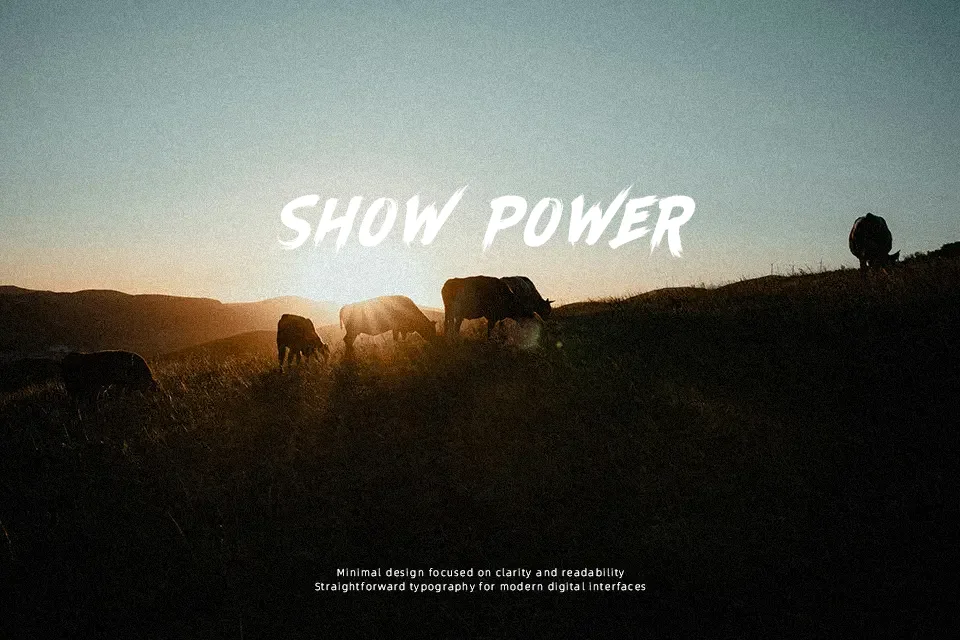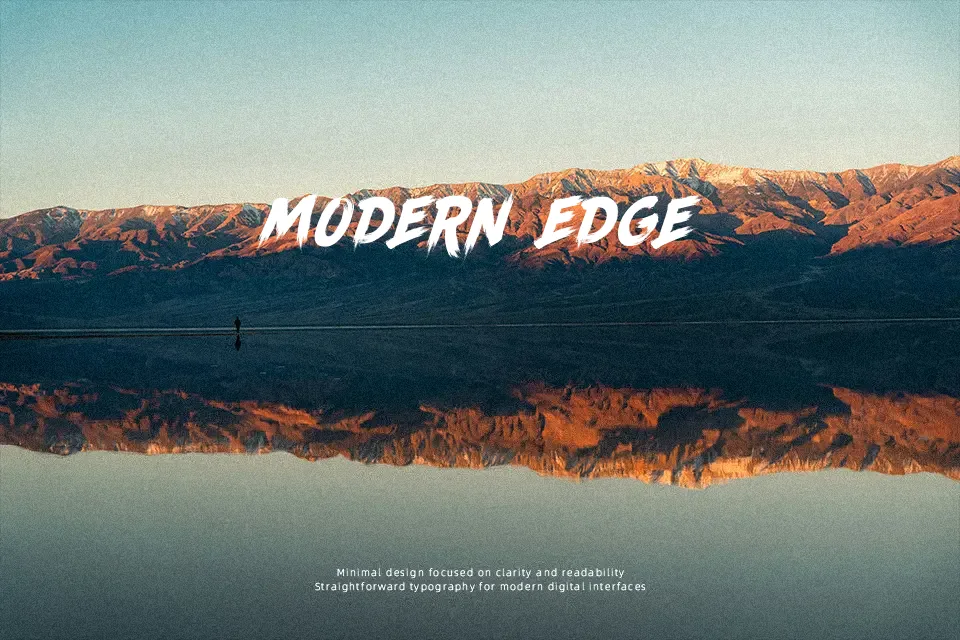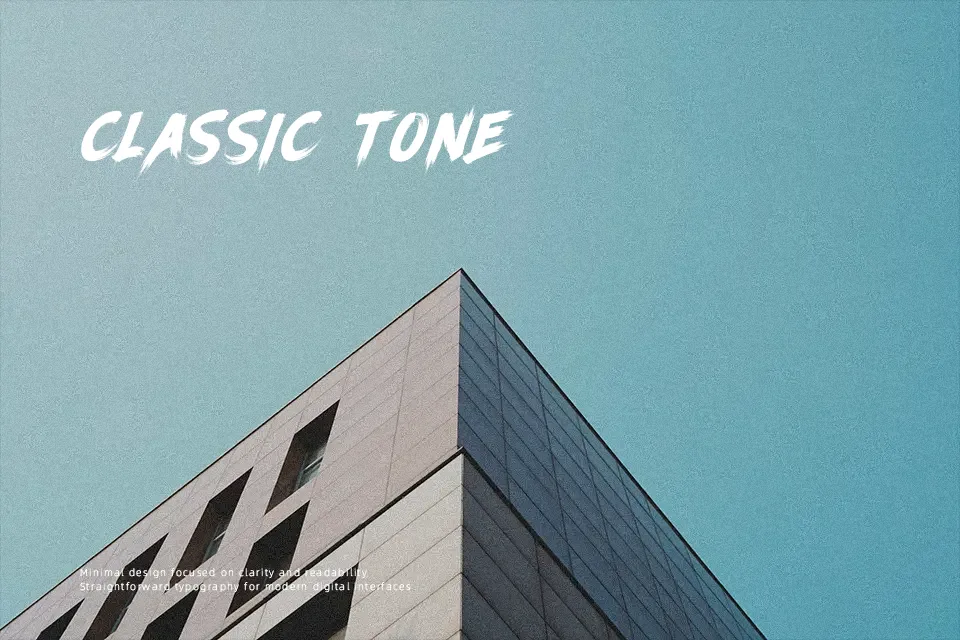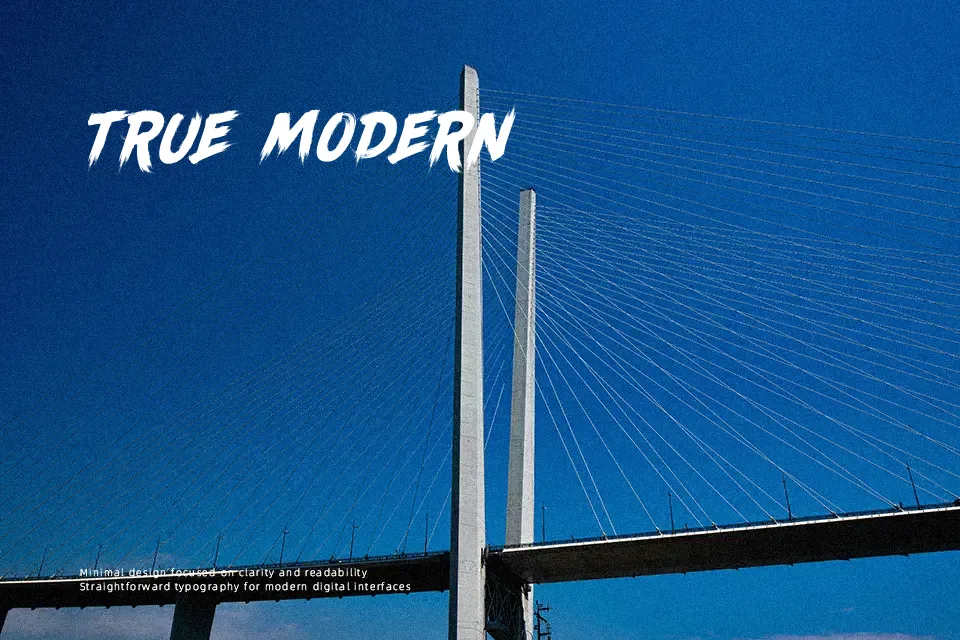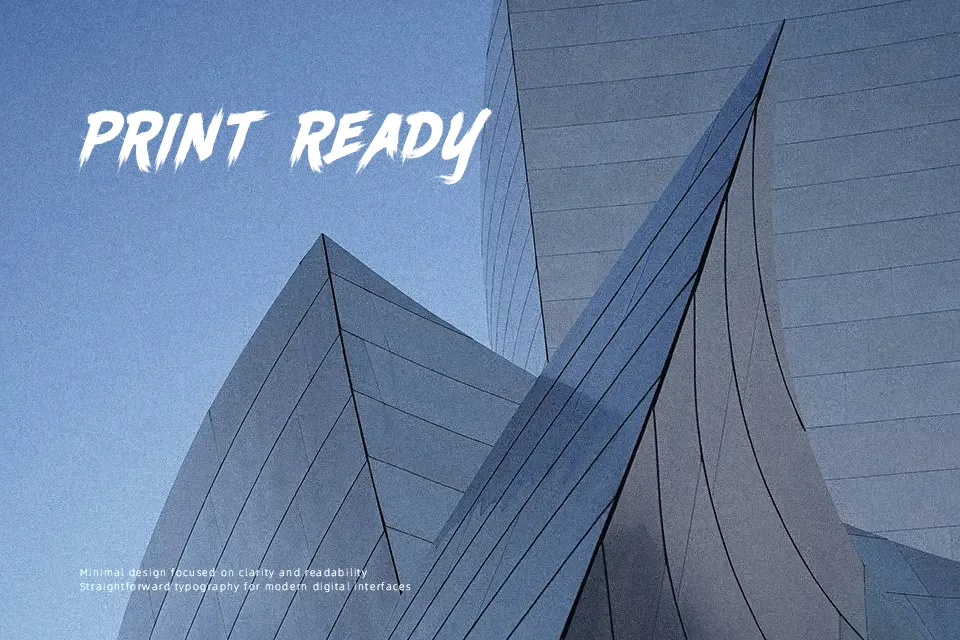
Ancherr Font
Designed by Vacatype Co.
Built from uneven brush strokes with high contrast and jagged edges, Ancherr reads less like typography and more like something scratched into a dark surface. The letterforms carry a rough, organic weight — thick downstrokes collide with thin, almost torn-looking terminals that give it an unmistakably horror-adjacent energy. It works well for short display text: poster headers, album cover titles, event name treatments, or apparel graphics where mood matters more than refinement. That said, Ancherr struggles badly at small sizes — the stroke irregularities collapse into visual noise, making it unsuitable for subheadings or captions. It also lacks the versatility needed for multilingual or symbol-heavy projects, as the glyph set is limited. Best deployed sparingly, in large sizes, against dark or textured backgrounds.
Best For:- Halloween event posters and horror-themed flyers
– Metal or punk band logo treatments
– Dark-themed apparel and t-shirt graphics
– Spooky cover titles for zines or indie publications
Not Ideal For:- Body text or any paragraph-length content
– Corporate or professional branding contexts
– Small-size usage where stroke detail is lost
– Multilingual designs requiring extended character support
Perfect for branding, fashion, and halloween, with a bold and brush style.